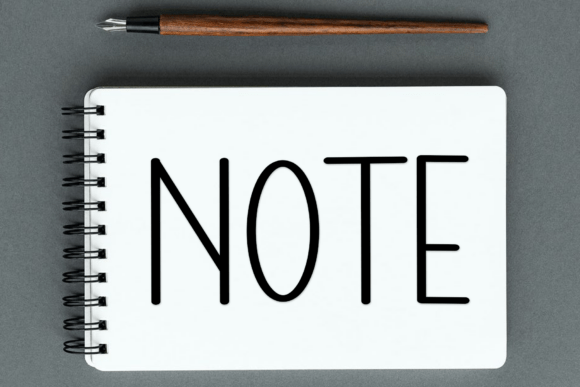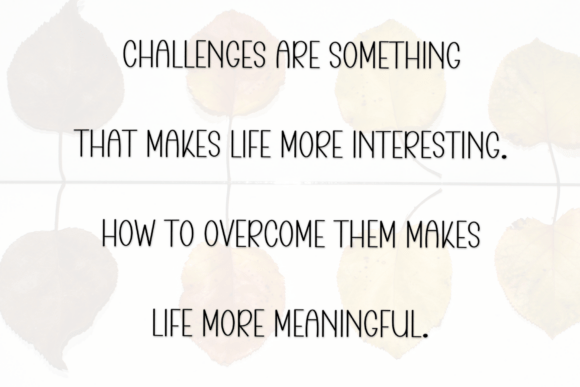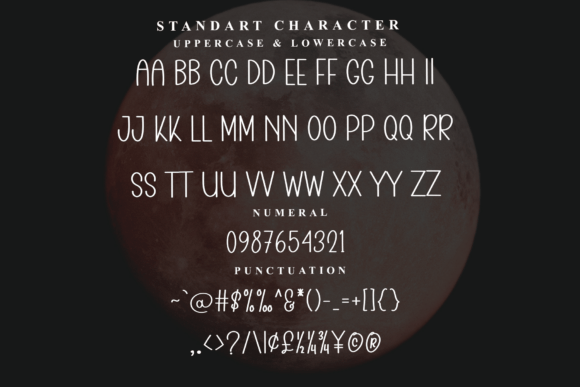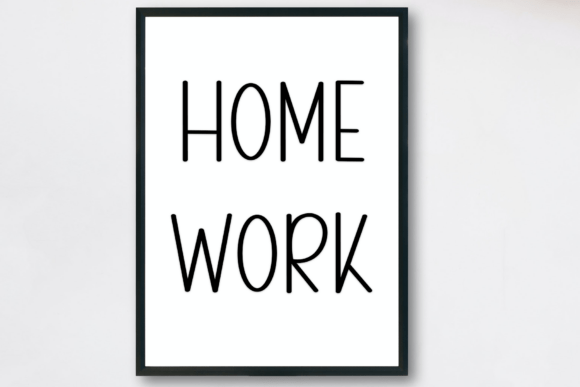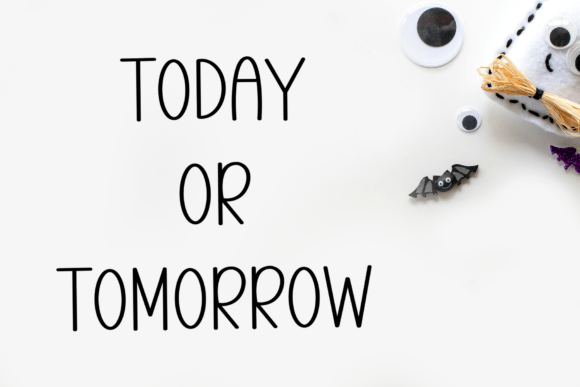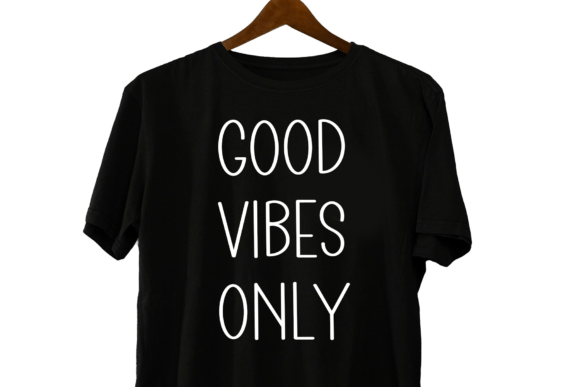
Spreading Cheer with Good Vibes Font: A Festive Typeface for Holiday Designs
The holiday season is upon us, and what better way to get into the spirit than with a font that’s merry, bright, and full of festive cheer? Look no further than Good Vibes Font, a decorative typeface that’s sure to add a touch of enchantment to your designs. In this article, we’ll dive into the world of Good Vibes Font, exploring its features, uses, and benefits for designers and crafters alike.
Good Vibes Font is a beautifully crafted typeface that’s specifically designed to capture the magic of the holiday season. With its whimsical flair and decorative elements, this font is perfect for adding a touch of nostalgia and cheer to your designs. Whether you’re creating greeting cards, gift tags, or holiday-themed projects, Good Vibes Font is the perfect choice.
One of the standout features of Good Vibes Font is its PUA (Private Use Area) encoding. This means that you can access all of the amazing glyphs and ligatures with ease, giving you complete creative control over your typography. With Good Vibes Font, you can add intricate details, flourishes, and ornaments to your text, taking your designs to the next level.
Perfect for Holiday Designs
Good Vibes Font is specifically designed with the holiday season in mind. Its festive and merry vibe makes it perfect for a wide range of holiday-themed projects, including:
- Greeting cards: Create beautiful, one-of-a-kind greeting cards that will make your loved ones feel special.
- Gift tags: Add a personal touch to your gifts with custom gift tags featuring Good Vibes Font.
- Holiday-themed projects: From invitations to party decorations, Good Vibes Font is the perfect choice for any holiday project.
Bringing a Cheerful and Nostalgic Ambiance to Your Words
Good Vibes Font has a unique ability to evoke a sense of nostalgia and cheerfulness in your designs. Its whimsical flair and decorative elements transport us back to a simpler time, evoking memories of childhood holidays and festive traditions. With Good Vibes Font, you can bring this sense of wonder and magic to your typography, making your designs truly special.
Good Vibes Font offers a range of benefits for designers and crafters, including:
- Ease of use: With its PUA encoding, Good Vibes Font is easy to use and access, even for those without extensive design experience.
- Customization: With a wide range of glyphs and ligatures at your disposal, you can customize your typography to suit your design style.
- Versatility: Good Vibes Font can be used for a wide range of projects, from digital designs to print materials.
In conclusion, Good Vibes Font is a beautifully crafted typeface that’s perfect for adding a touch of festive cheer to your designs. With its decorative elements, whimsical flair, and PUA encoding, this font is a must-have for designers and crafters alike. Whether you’re creating holiday-themed projects or simply looking to add a touch of magic to your typography, Good Vibes Font is the perfect choice. So why wait? Get spreading cheer with Good Vibes Font today!
- Festive and merry typeface
- Decorative elements and whimsical flair
- Perfect for holiday-themed projects, greeting cards, and gift tags